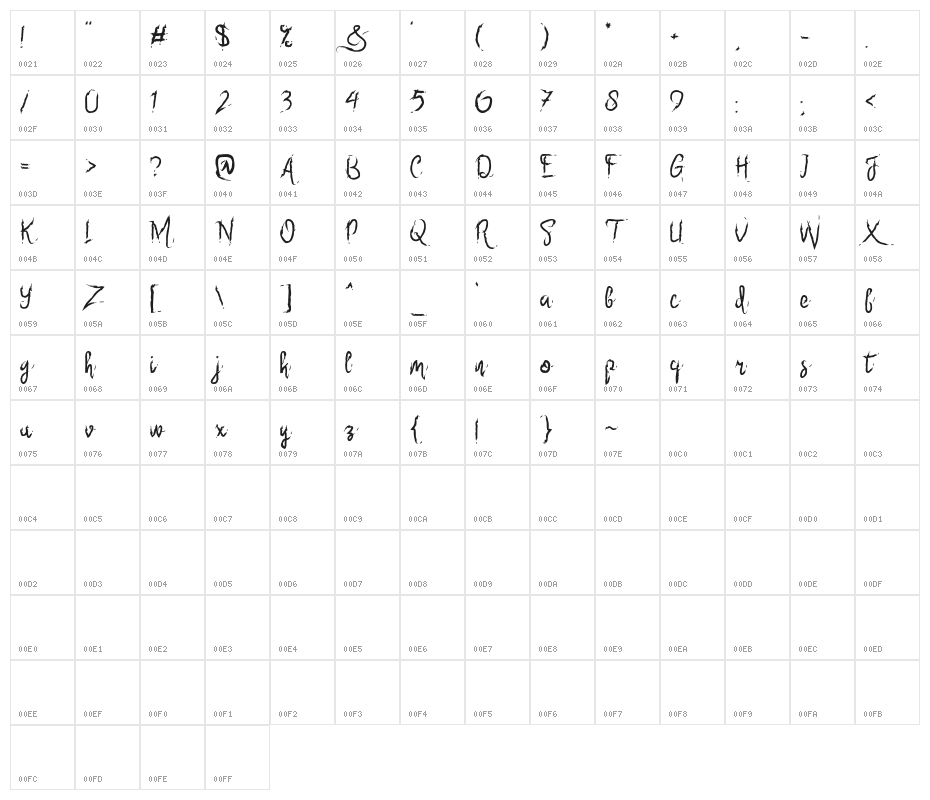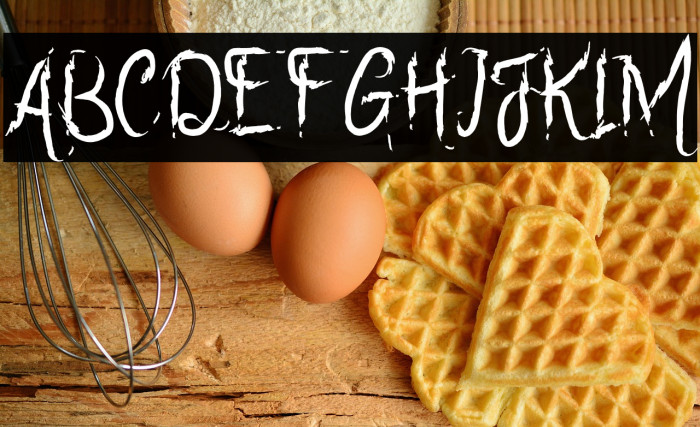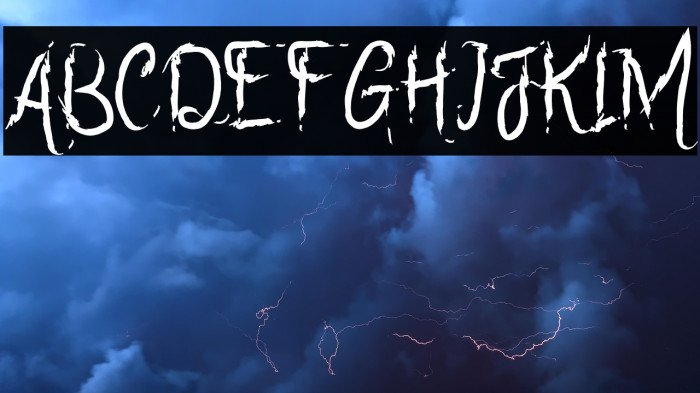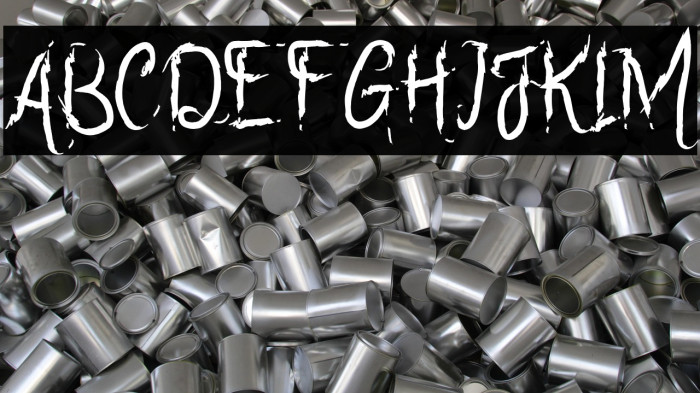
SixOnly Font
SixOnly Description
This font exhibits a bold and expressive style, characterized by its brush-like strokes and uneven edges, giving it a raw and artistic appearance. The uppercase letters are particularly striking, with exaggerated curves and varying line thicknesses that convey a sense of movement and energy. The lowercase letters maintain this dynamic quality, though with a slightly more restrained form. Numbers and special characters follow the same aesthetic, ensuring consistency throughout. The overall design is reminiscent of hand-painted signage, making it ideal for projects that require a personal and creative touch.
| Use Case | Logos, Headlines, Posters |
| Proposed Projects | Ideal for artistic projects, posters, album covers, and branding that requires a dynamic and creative flair. |